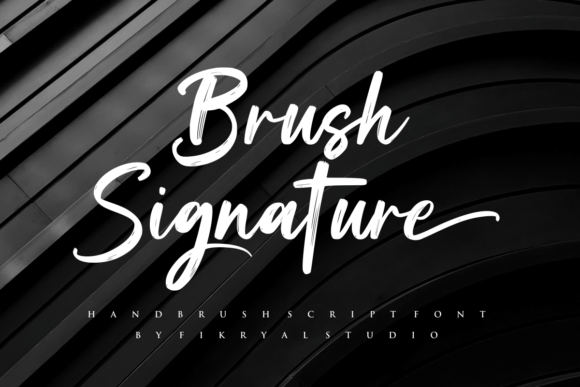
Introducing Brush Signature Font: A Delicate and Cursive Handwritten Font
The world of typography is vast and diverse, with numerous font styles to choose from, each with its unique characteristics and uses. Among these, handwritten fonts hold a special place in the hearts of designers and artists, as they bring a personal touch to any design project. One such font that has gained popularity for its elegance and versatility is the Brush Signature Font. In this article, we’ll delve into the features, benefits, and potential uses of Brush Signature, a delicate and cursive handwritten font that is making waves in the design community.
What is Brush Signature Font?
Brush Signature is a beautiful, delicate, and cursive handwritten font designed to add a touch of elegance and sophistication to any design project. Its gentle strokes and fluid connections make it perfect for creating stunning visuals that capture the essence of handwriting. The font’s unique charm lies in its ability to convey a sense of warmth and personality, making it an excellent choice for designers looking to add a human touch to their work.
Key Features of Brush Signature Font
- PUA Encoded: Brush Signature is PUA (Private Use Area) encoded, which means that it has a wide range of glyphs and swashes that can be accessed easily. This feature allows designers to experiment with different variations of the font, making it highly versatile and adaptable.
- Delicate and Cursive: The font’s delicate and cursive nature makes it perfect for creating elegant and sophisticated designs. Its gentle strokes and fluid connections give it a unique charm that sets it apart from other fonts.
- Handwritten: Brush Signature has a distinctly handwritten feel, which makes it ideal for designs that require a personal touch. Its imperfections and quirks give it a human touch that resonates with audiences.
Design Ideas with Brush Signature Font
Brush Signature is a versatile font that can be used in a variety of design projects. Its delicate and cursive nature makes it perfect for:
- Wedding and Event Design: The font’s elegant and sophisticated feel makes it perfect for wedding invitations, event posters, and other related design materials.
- Branding and Packaging: Brush Signature can be used to create stunning brand logos, packaging designs, and labels that require a touch of elegance and sophistication.
- Stationery and Greeting Cards: The font’s handwritten feel makes it ideal for creating beautiful stationery, greeting cards, and other paper products.
- Digital Media: Brush Signature can also be used in digital media, such as social media graphics, blog headers, and website designs, to add a touch of personality and whimsy.
Tips and Tricks for Using Brush Signature Font
To get the most out of Brush Signature, here are some tips and tricks to keep in mind:
- Experiment with Different Sizes: Brush Signature looks great in various sizes, from small to large. Experiment with different sizes to find the one that works best for your design.
- Play with Colors: The font’s delicate nature makes it perfect for pastel colors, but it can also work well with bold and bright colors. Experiment with different color combinations to find the one that suits your design.
- Mix and Match with Other Fonts: Brush Signature can be paired with other fonts to create a unique and interesting design. Experiment with different font combinations to find the one that works best for your project.
In conclusion, Brush Signature Font is a beautiful and versatile font that can add a touch of elegance and sophistication to any design project. Its delicate and cursive nature, combined with its PUA encoding, makes it a highly adaptable font that can be used in a variety of design applications. With its unique charm and personality, Brush Signature is sure to become a favorite among designers and artists.